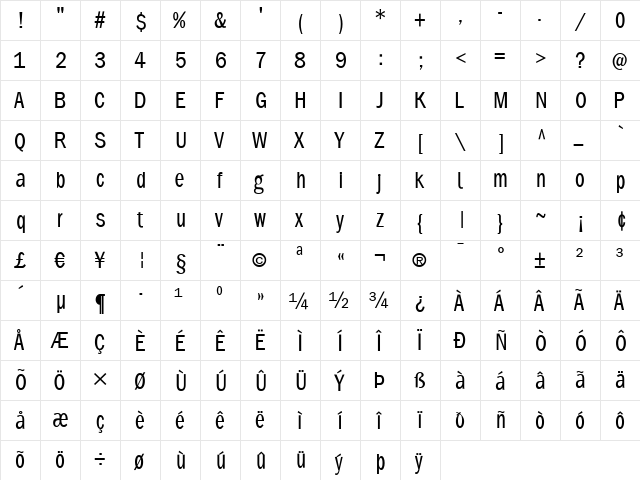
PhonebookFont Regular
Design Context for PhonebookFont Typeface
PhonebookFont is a composed and adaptable typeface that performs quietly and consistently across a wide range of design contexts.
Pro Tip: Pair PhonebookFont with a font of contrasting weight or personality to build a more expressive typographic hierarchy.